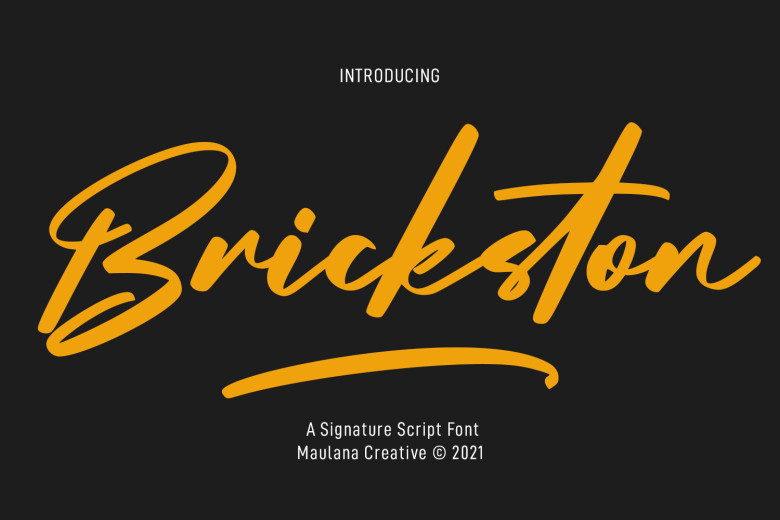
Brickston Font
Brickston is an elegant casual script font, exuding elegance and sophistication with its beautiful alternates and ligatures – making this font suitable for use in any design project.
Brickston Signature Script Font